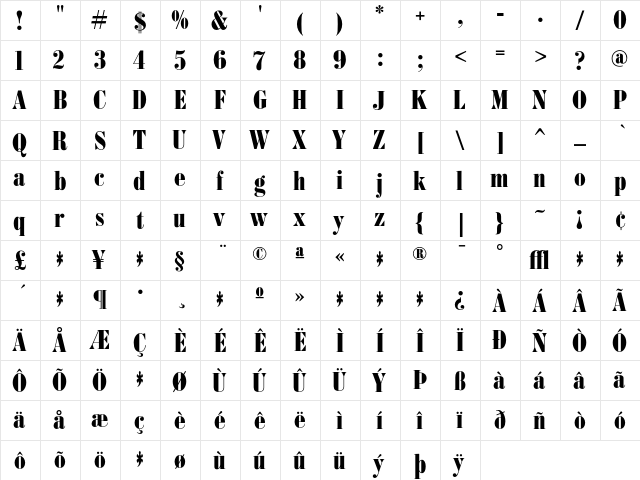
BodoniFB BoldCondensed Font Preview
Design Context for BodoniFB Typeface
BodoniFB offers clean, dependable letterforms without strong stylistic allegiance, making it a practical choice for designers who need flexibility. The heavy weight commands attention and anchors typographic hierarchies. The condensed width makes it efficient for tight spaces without sacrificing legibility.